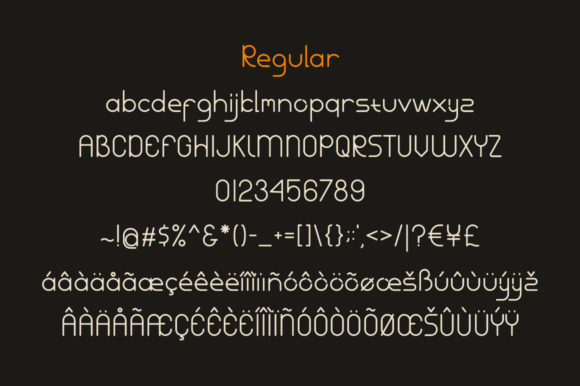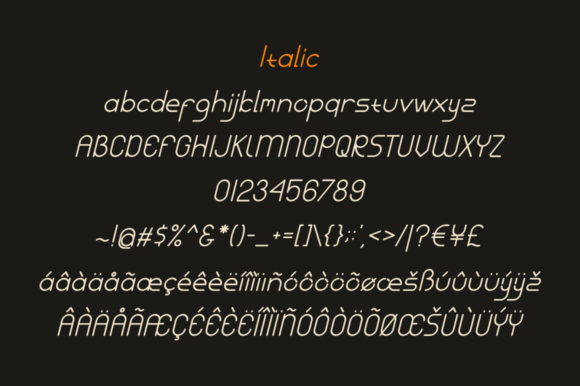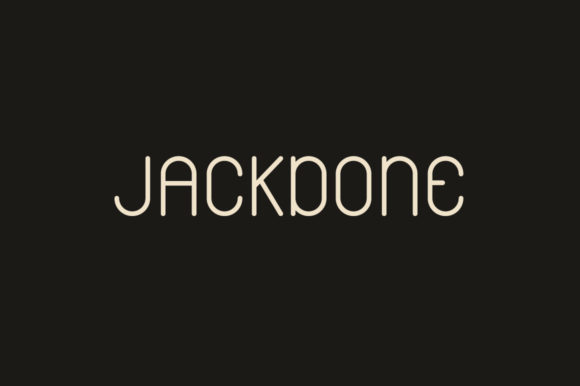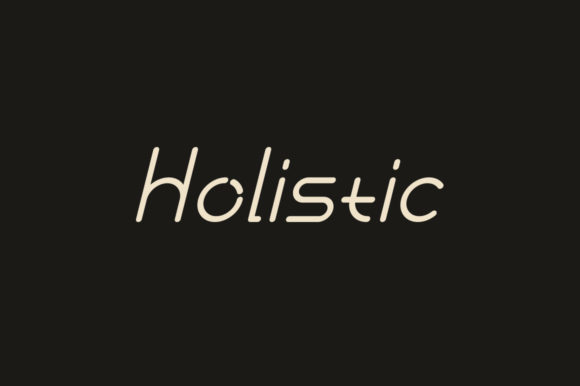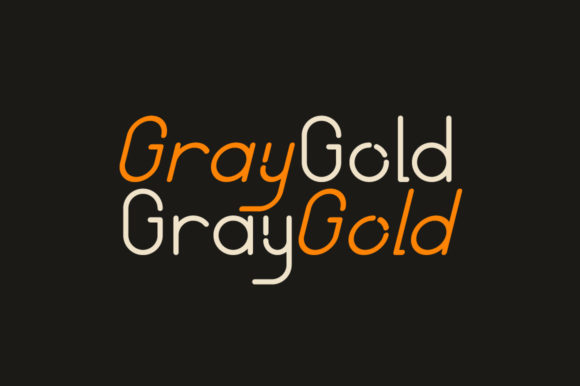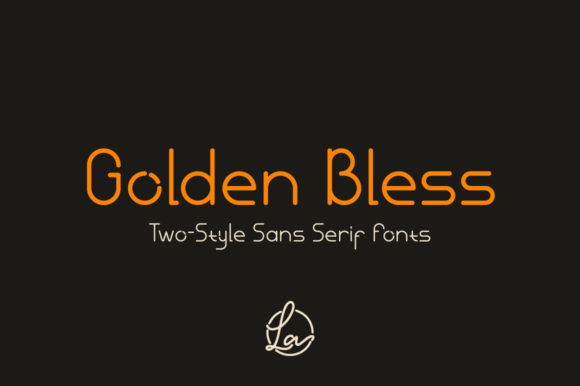
Introducing Golden Bless Font: Elevate Your Designs with Elegance and Sophistication
In the realm of digital design, typography plays a pivotal role in conveying messages, evoking emotions, and creating lasting impressions. Among the myriad of fonts available, the Golden Bless Font stands out as a beacon of modernity, elegance, and beauty. This sans serif style font is meticulously crafted to cater to the needs of designers and crafters aiming to infuse their projects with a touch of sophistication and minimalism.
What Makes Golden Bless Font Special?
Golden Bless is not just another font; it’s a design statement. Its modern and elegant aesthetic makes it an ideal choice for a wide range of applications, from minimalist logos and wordmarks to titles, taglines, and beyond. The beauty of Golden Bless lies in its versatility, allowing it to seamlessly blend into various design contexts while maintaining its unique charm.
Key Features of Golden Bless Font
- Modern Sans Serif Style: Embodying the essence of contemporary design, Golden Bless boasts a clean and crisp sans serif style that appeals to the modern sensibilities of designers and audiences alike.
- Elegant and Beautiful: The font’s elegant curves and beautiful lines make it perfect for projects that demand a touch of luxury and sophistication.
- Versatile Application: Whether you’re working on a logo, wordmark, title, tagline, or any other creative project, Golden Bless is versatile enough to make your designs stand out.
- Suitable for Minimalist Designs: For those who appreciate the power of minimalism, Golden Bless offers a simplistic yet impactful approach to typography.
Why Choose Golden Bless Font for Your Projects?
Choosing the right font for your project can be a daunting task, given the plethora of options available. However, Golden Bless Font offers several compelling reasons to make it your go-to choice:
- Enhances Readability: The clear and clean design of Golden Bless ensures excellent readability, making it perfect for both digital and print media.
- Evokes Emotion: The elegant and modern feel of the font can evoke a range of emotions, from sophistication and luxury to friendliness and approachability, depending on the context.
- Customizable: Being a versatile font, Golden Bless can be easily customized to fit the specific needs of your project, whether it involves adjusting the size, color, or integrating it with other design elements.
- Time-Saving: With Golden Bless, you can significantly reduce the time spent on selecting and experimenting with different fonts, allowing you to focus on other creative aspects of your project.
How to Use Golden Bless Font Effectively in Your Designs
To make the most out of Golden Bless Font, consider the following tips:
- Pair it with Complementary Fonts: When combining Golden Bless with other fonts, choose those that complement its modern and elegant feel to create a cohesive design.
- Experiment with Colors: Don’t be afraid to experiment with different colors to find the perfect match that enhances the overall aesthetic of your design.
- Play with Sizes: Utilize different sizes to create a visual hierarchy in your design, making it more engaging and easier to navigate.
Golden Bless Font is more than just a typography option; it’s a design solution that can elevate your projects to new heights of elegance and sophistication. Its modern sans serif style, versatility, and beautiful aesthetic make it an indispensable tool for designers and crafters looking to make a lasting impression. By incorporating Golden Bless into your creative arsenal, you’re not just choosing a font; you’re embracing a design philosophy that speaks to modernity, elegance, and the power of beautiful typography.